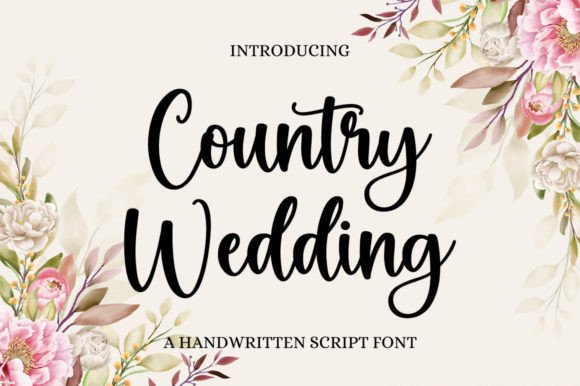
Introducing Country Wedding Font, a captivating script font that will add a touch of sophistication and elegance to your projects. Created by the talented team at Graphix Line Studio, this font is a perfect blend of delicacy and refinement.
With its stylish and graceful characters, Country Wedding Font is the epitome of beauty, making it an ideal choice for any project that requires a touch of class. Whether you're designing wedding invitations, crafting heartfelt love letters, or creating stunning branding materials, this font will elevate your work to new heights.
The versatility of Country Wedding Font knows no bounds. Its graceful curves and intricate details will effortlessly enhance the romantic and sentimental aspects of your designs. Captivate your audience and evoke powerful emotions with this exquisite typeface.
Immerse yourself in the enchanting world of Country Wedding Font, where every letter tells a story. The flowing strokes and gentle swashes will create a sense of love and tenderness, making your text come alive on the page. Let your words dance with elegance and captivate the hearts of your readers.
With its extensive range of ligatures and alternate characters, Country Wedding Font offers endless possibilities for creativity. Tailor your typography to suit your vision and create a unique and personalized experience for your audience. Stand out from the crowd and leave a lasting impression with this one-of-a-kind font.
Whether you're a professional designer or an enthusiast looking to add a touch of elegance to your DIY projects, Country Wedding Font is a must-have in your collection. Its timeless beauty and versatility make it an invaluable asset for any creative endeavor.